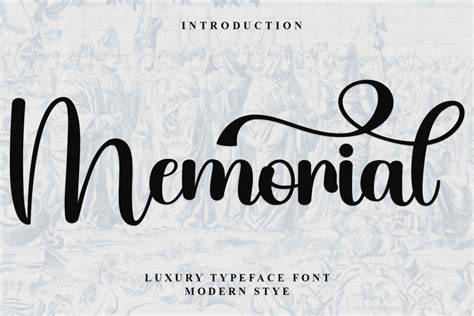
Memorial Fonts: Honor The Memories Of Your Loved Ones
Memorial fonts are a unique way to honor those who have passed away and remember them fondly. This type of font has become increasingly popular in the last few years, as more people are looking for ways to remember their loved ones in a creative and meaningful way. Memorial fonts can be used on headstones, memorial cards, or even as a part of an online memorial page. They also make great gifts for family and friends who want to remember their loved one in a special way.
Types of Memorial Fonts
There are several types of memorial fonts available, each with their own unique style and purpose. Some of the most popular types of memorial fonts include:
- Cursive Memorial Fonts: Cursive memorial fonts are a popular style that are often used on headstones and memorial cards. This font style is usually written in a flowing, graceful style that is often associated with elegance and sophistication.
- Script Memorial Fonts: Script memorial fonts are a more modern style of font and are often used in online memorial pages. This font style is often associated with a casual or modern look and feel.
- Gothic Memorial Fonts: Gothic memorial fonts are a popular style of font that are often used as a tribute to a loved one who has passed away. This font style is often associated with darkness and death but can also be used in a more positive manner.
- Decorative Memorial Fonts: Decorative memorial fonts are a popular style of font that are often used to create a more whimsical look and feel. This font style is often used on memorial cards and online memorial pages.
Benefits of Memorial Fonts
In addition to being a creative way to remember your loved one, memorial fonts also have several other benefits. Using memorial fonts can help you to:
- Create a unique and meaningful way to remember your loved one
- Create an online memorial page that will last for years
- Create a beautiful and lasting tribute to your loved one
- Create a memorable and meaningful message on a headstone or memorial card
- Create a gift that can be cherished for years to come
Memorial fonts are a great way to honor and remember those who have passed away. Whether you are looking for a unique way to remember your loved one or a creative way to create an online memorial page, memorial fonts are an excellent choice. With so many different types and styles available, it is easy to find the perfect font to honor your loved one.